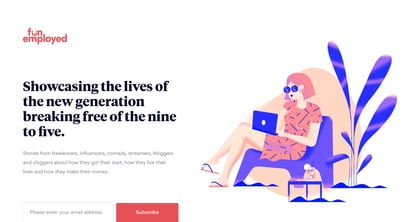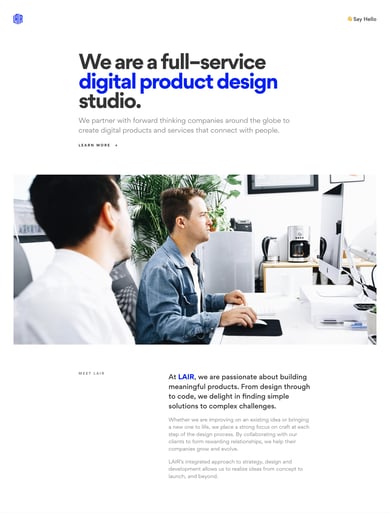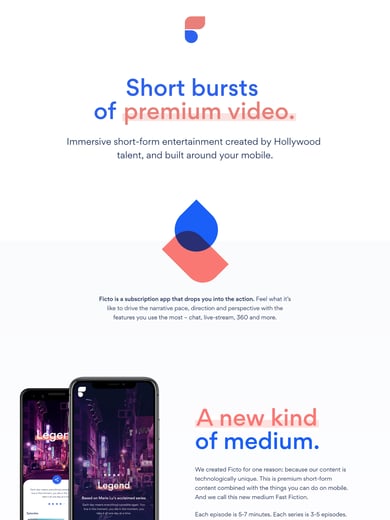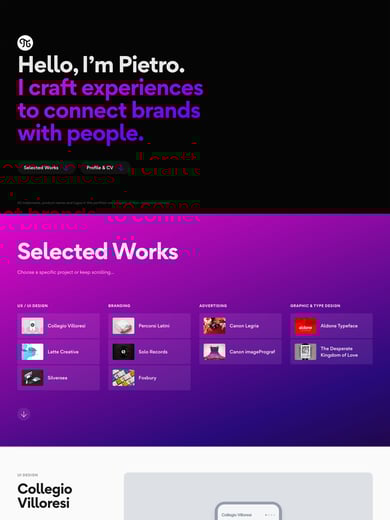
Gordita
Gordita starts with geometric shapes, then adjusts their joins and proportions optically. Tapered connections and ink traps in heavier styles keep those shapes from becoming overly dense. Thomas Gillett also made the italics slightly narrower and lighter than the uprights, alongside alternate characters and several numeral styles.